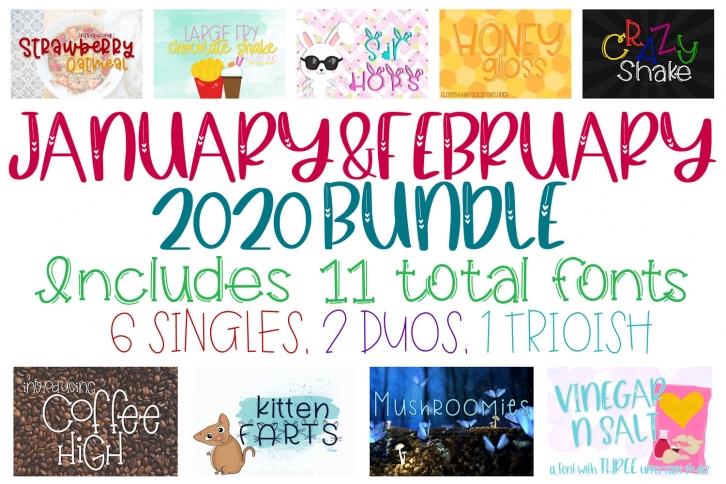
The January February 2020 Bundle is a beautiful font that was designed by Nichole Andrew. It's a great choice for designers and creatives who need such a font. It was released on February 26, 2020 and the file size is 2.70 MB. The January February 2020 Bundle may give a more youthful, expressive and casual look to your project. It is a very beautiful, refined, elegant, and high-quality font.